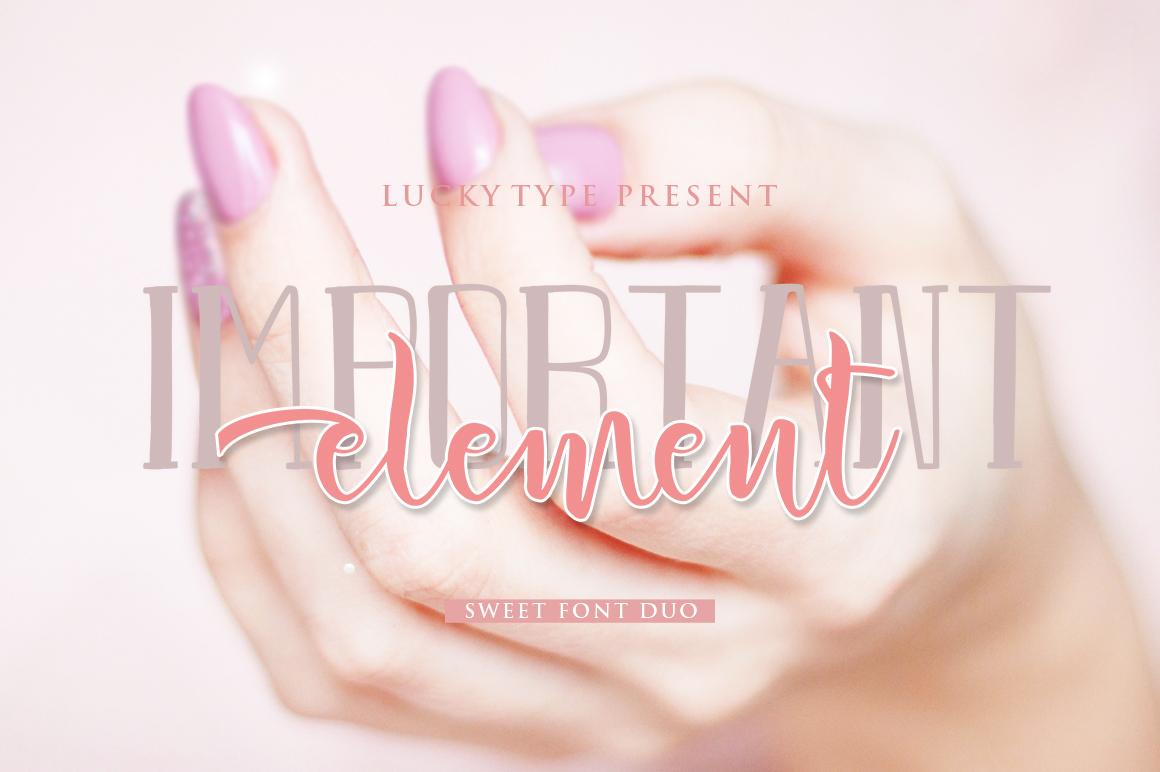
Important Element Font Description
The Important Element is a classic thin font with an italic style. It includes several modern swirls that can make your work look elegant, sweet and perfect.
It’s suitable for product packaging, mugs, quotes, posters, shopping bags, logos, t-shirts, book covers, business cards, invitation cards, greeting cards, and all your other beautiful projects.